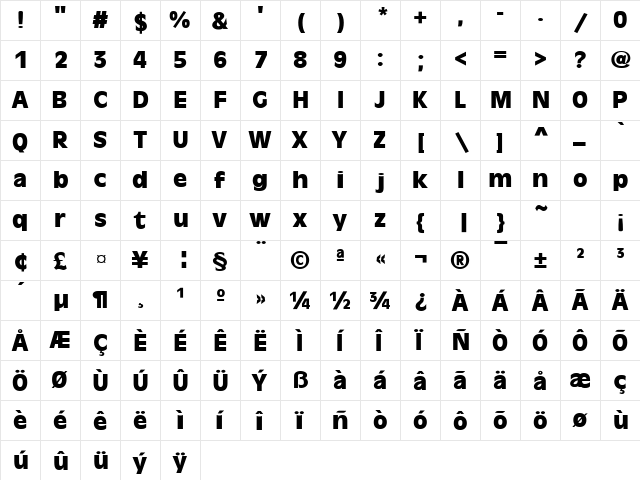
AntiquarianBlack Regular
Design Context for AntiquarianBlack Typeface
AntiquarianBlack offers clean, dependable letterforms without strong stylistic allegiance, making it a practical choice for designers who need flexibility.
Pro Tip: Use AntiquarianBlack in both headline and body roles to test its range before committing to a single application.